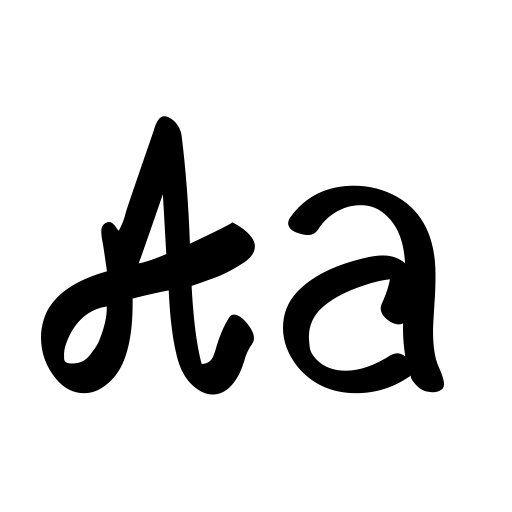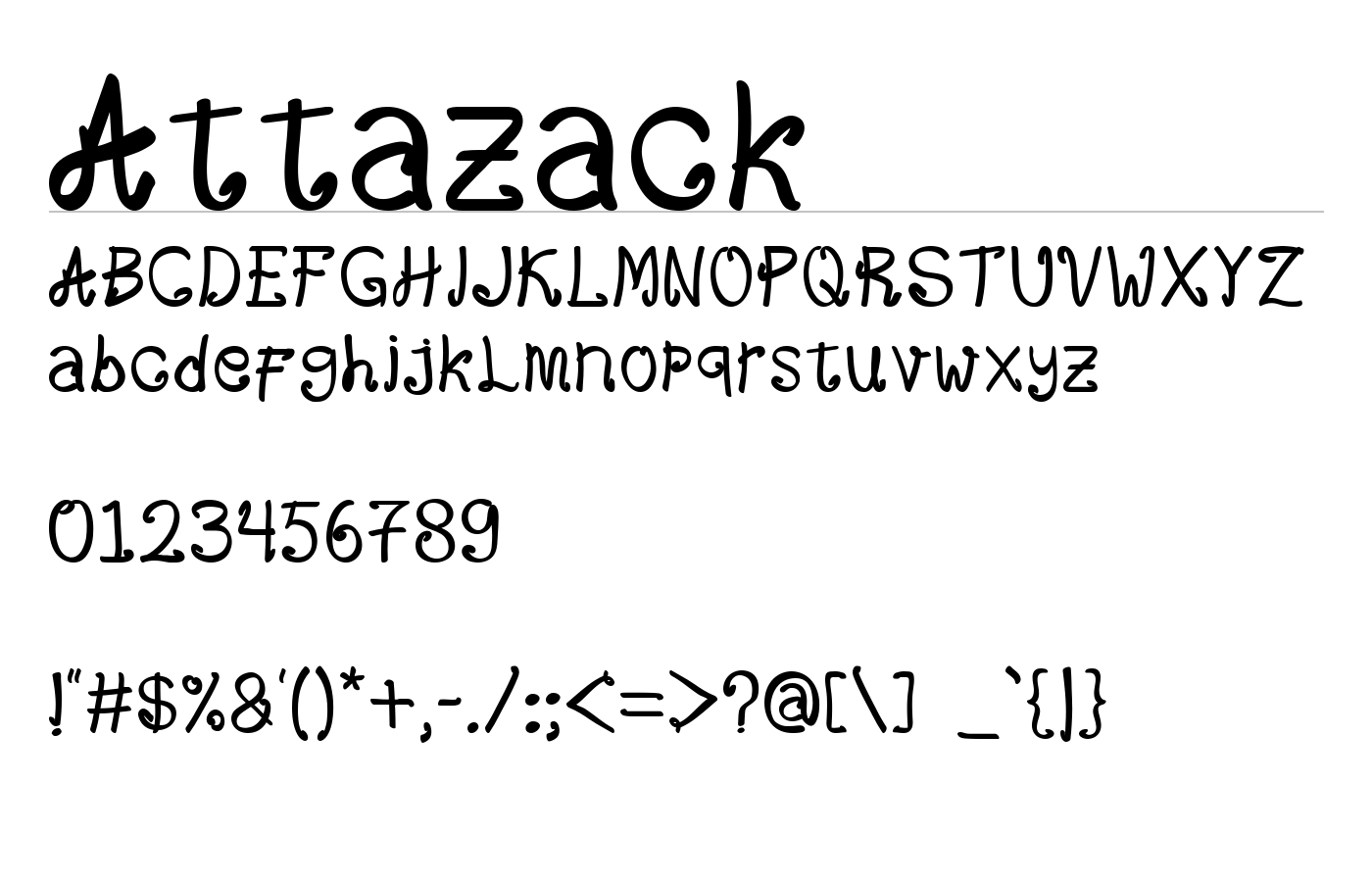
Attazack is a playful, hand-drawn serif font with a casual and quirky personality. Its irregular, slightly whimsical letterforms feature thin strokes with soft, rounded serifs and medium contrast, making it feel friendly and approachable. Ideal for creative projects, children's books, casual branding, or fun headlines, this font adds a unique, personal touch while maintaining readability.
Attazack Font